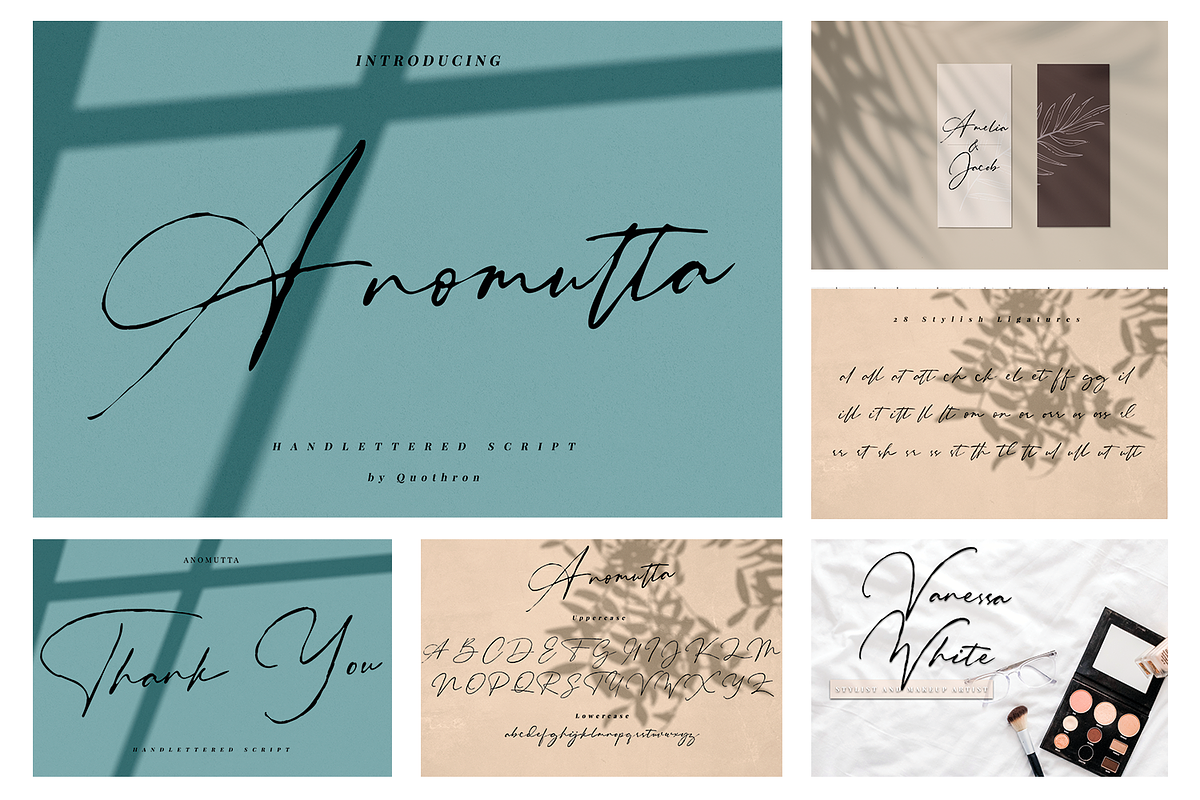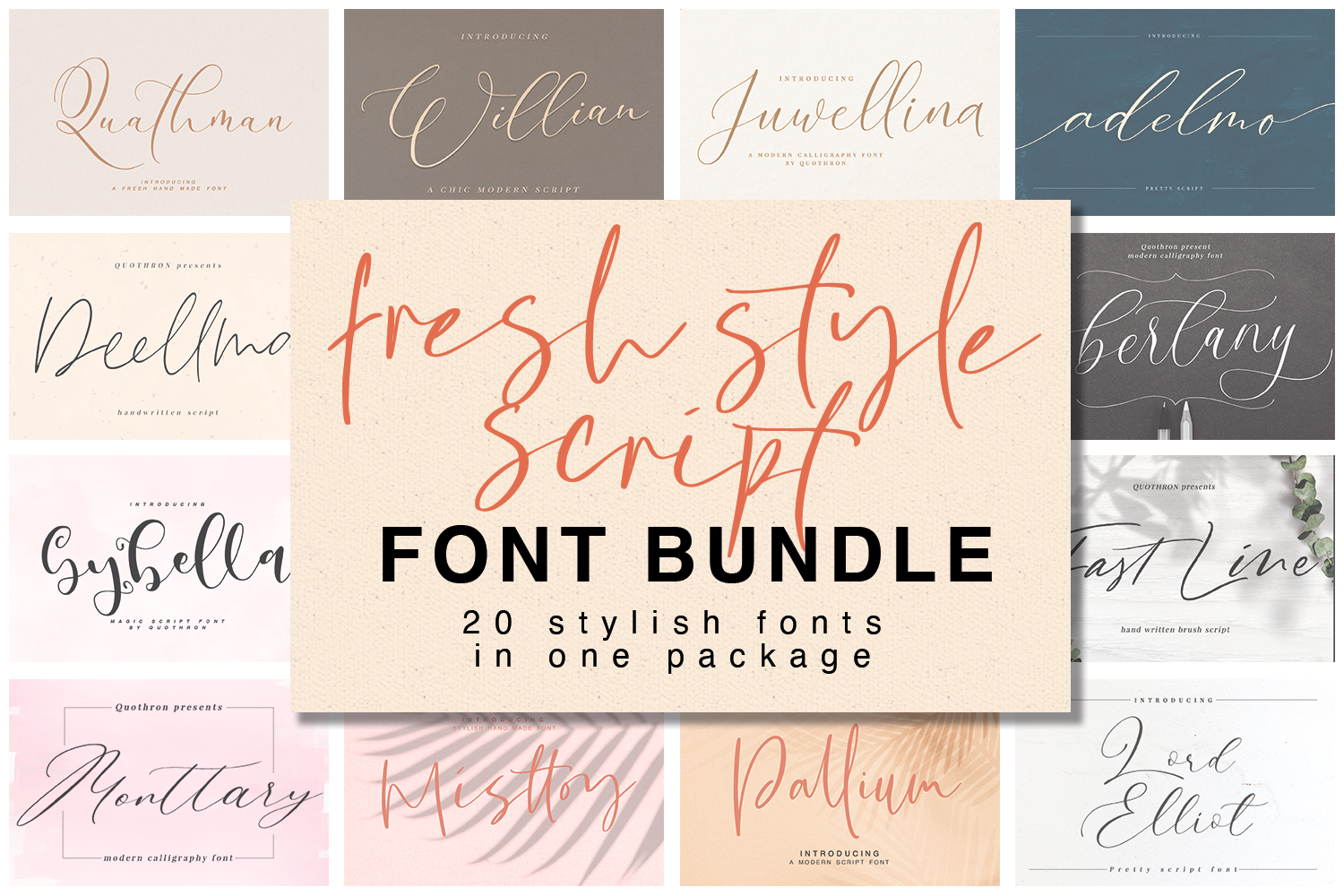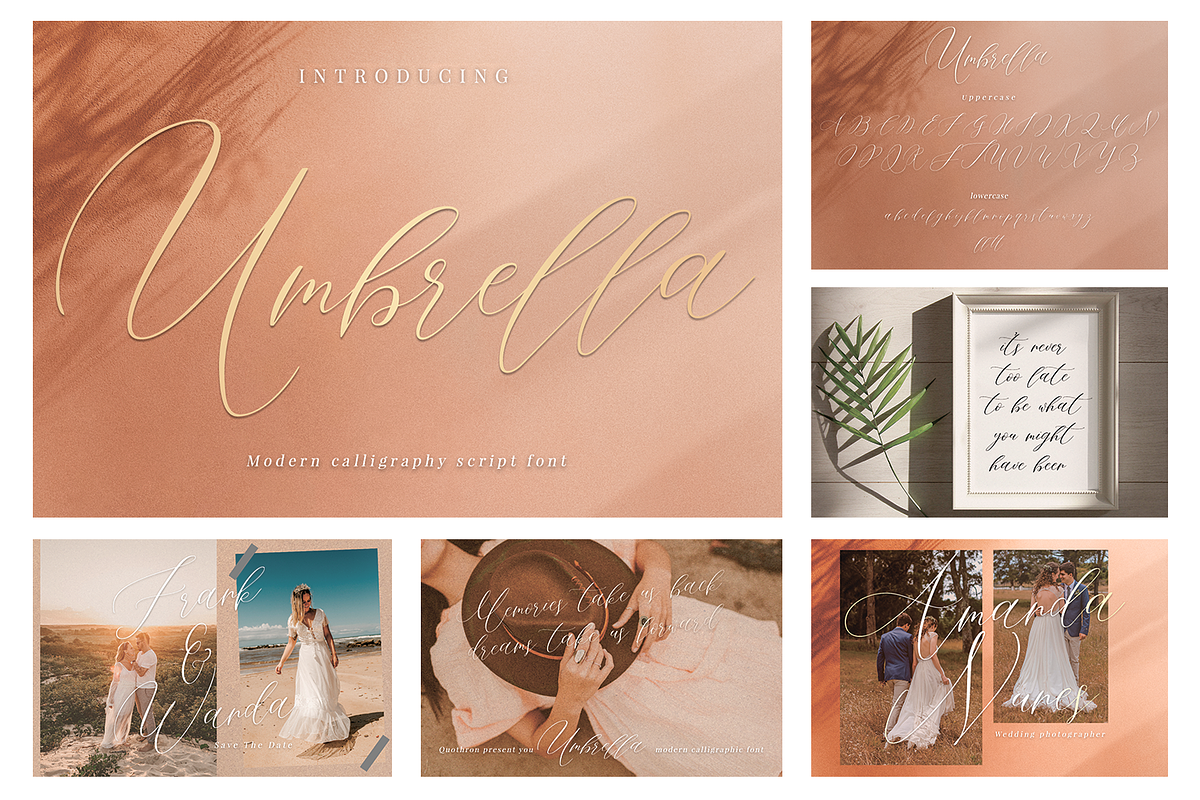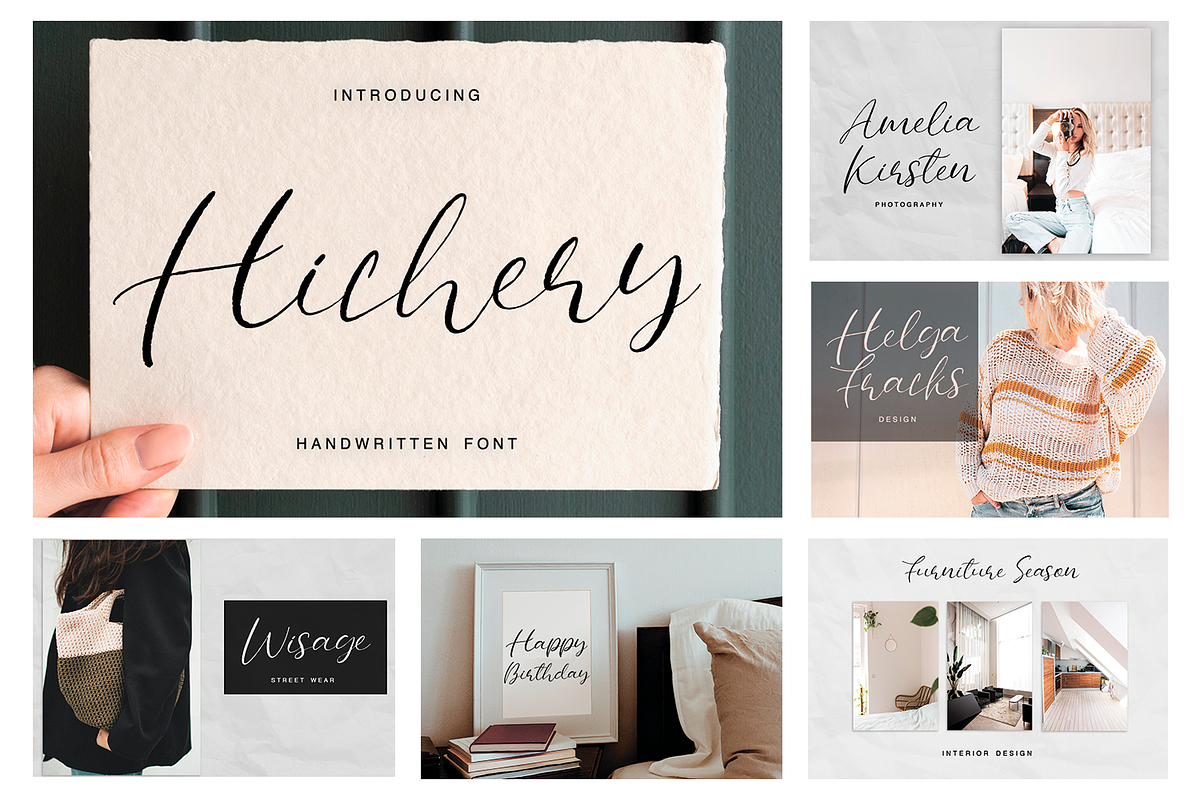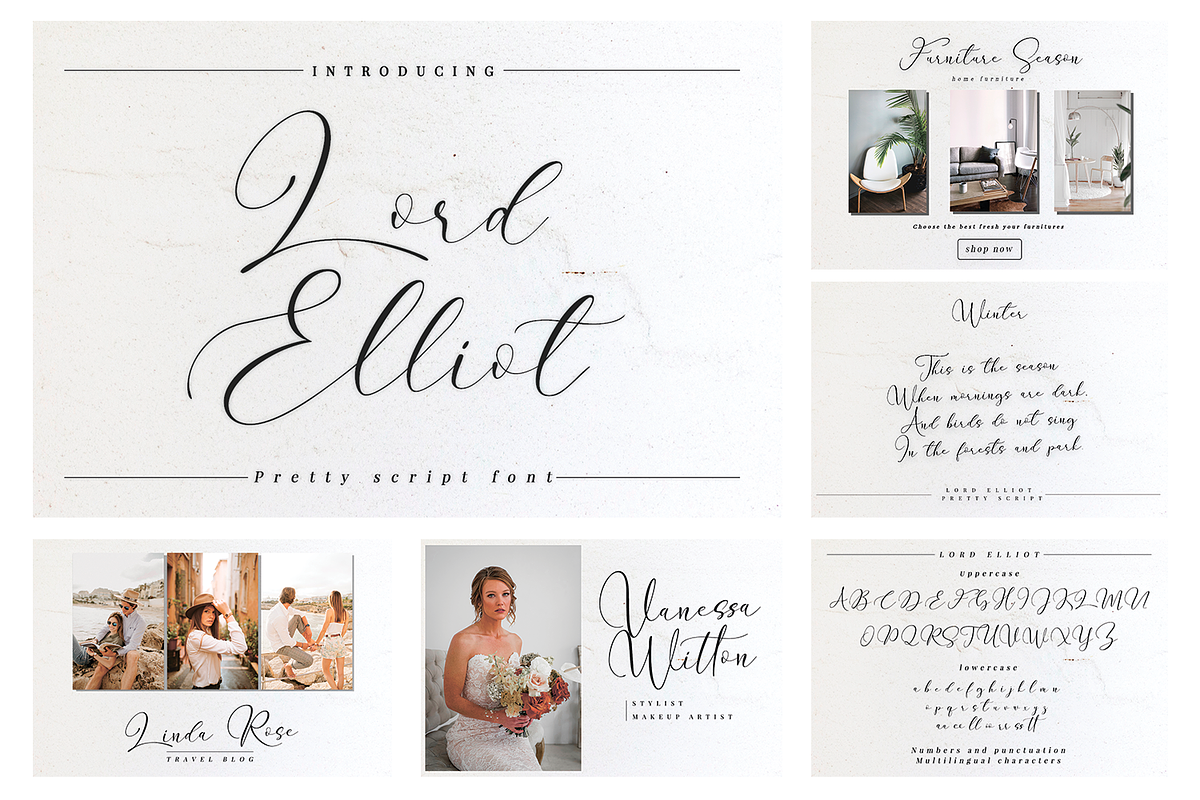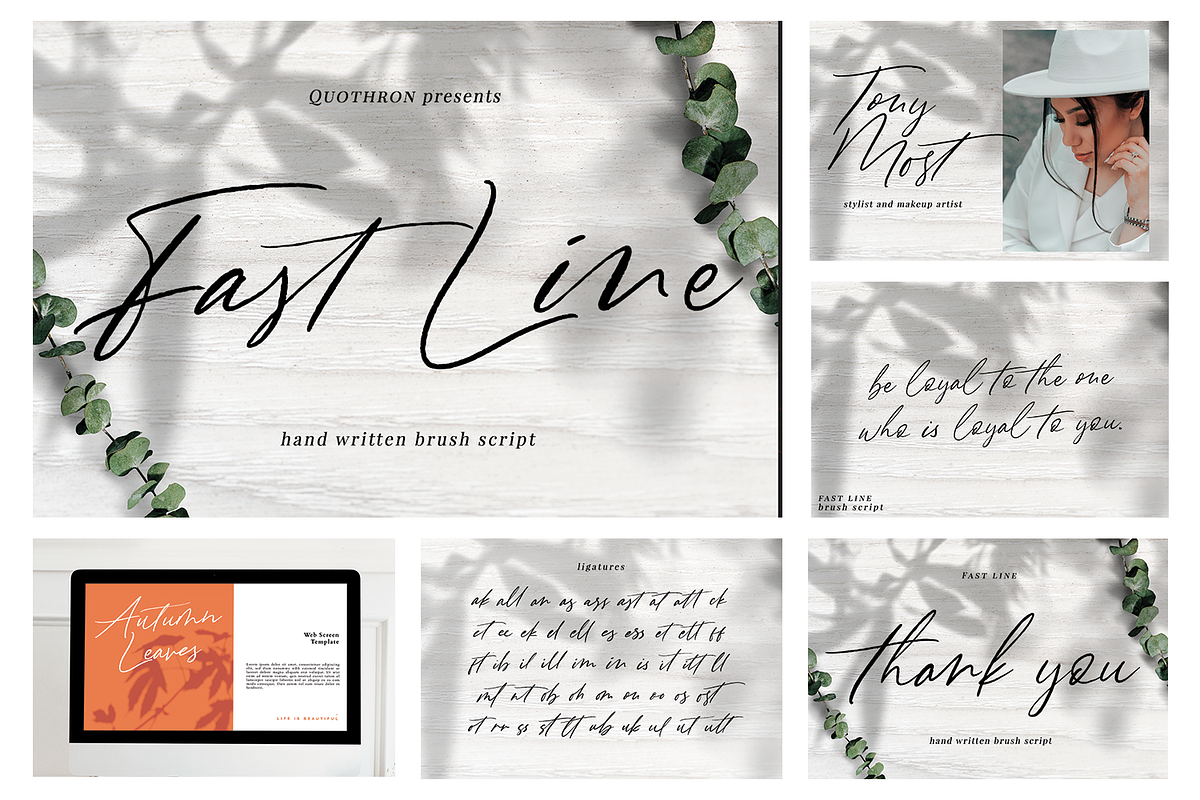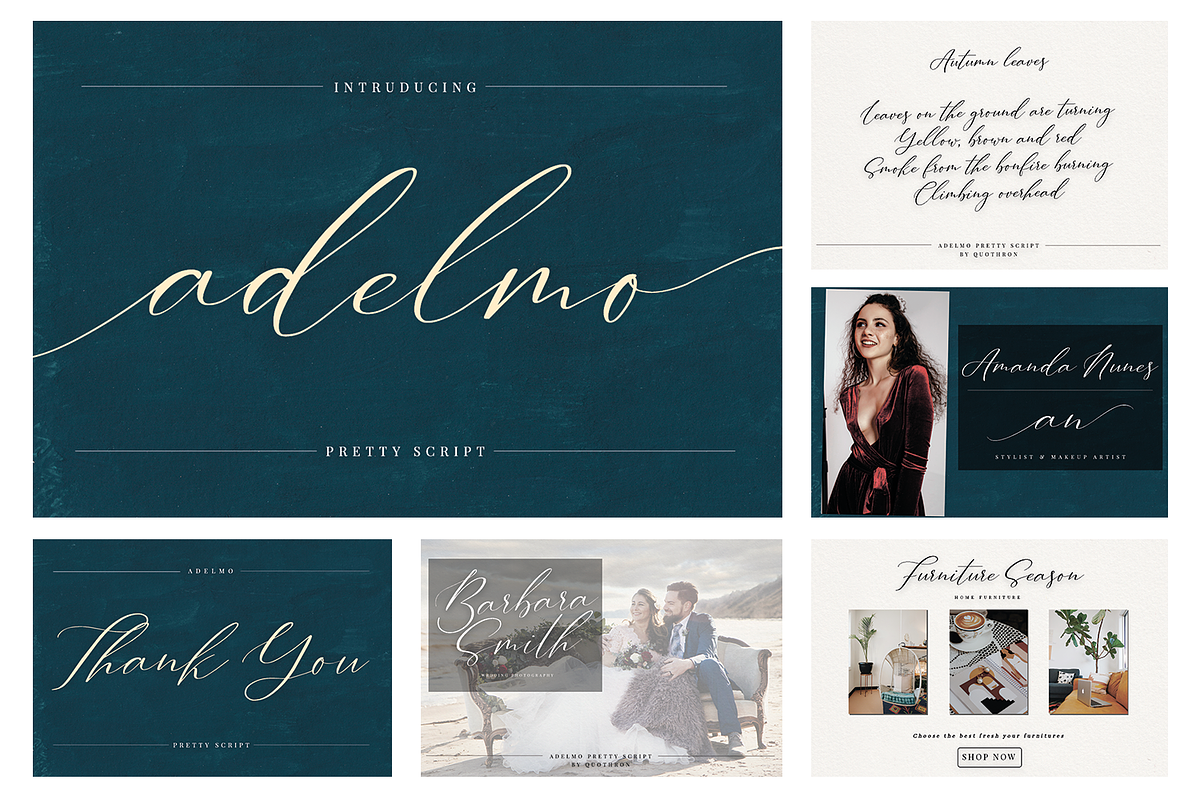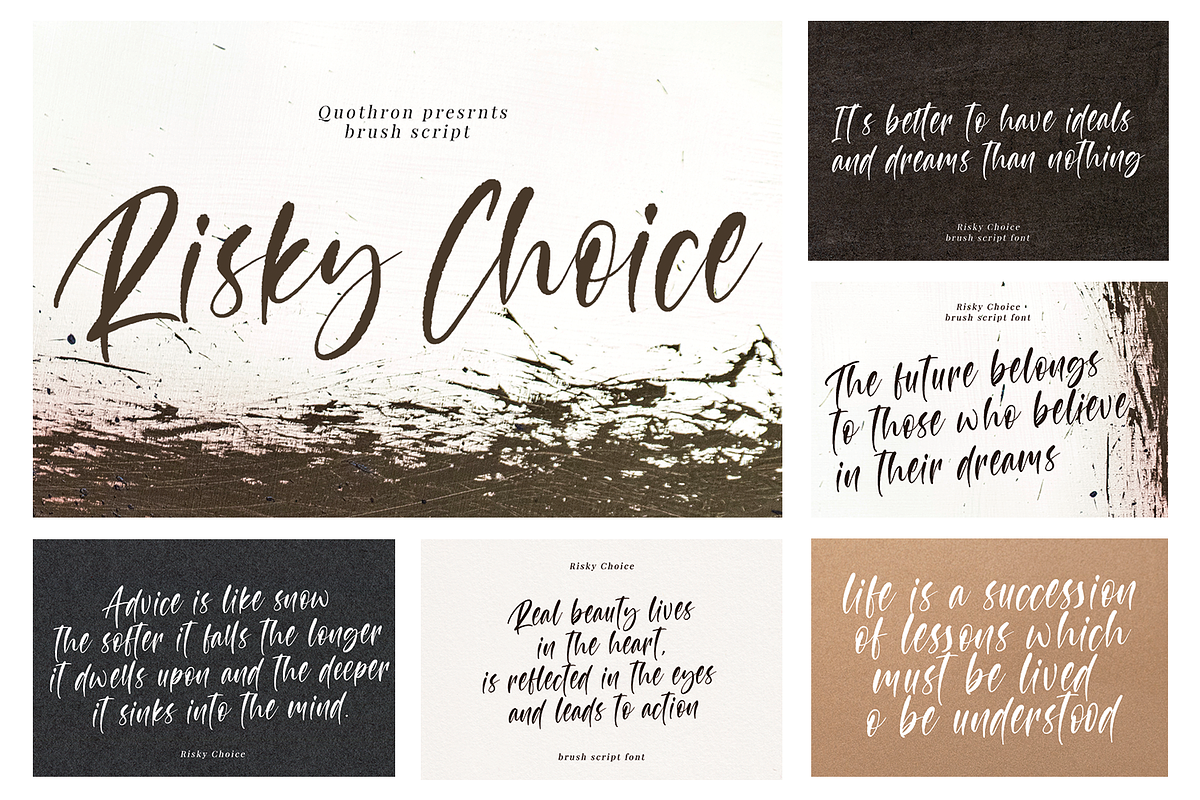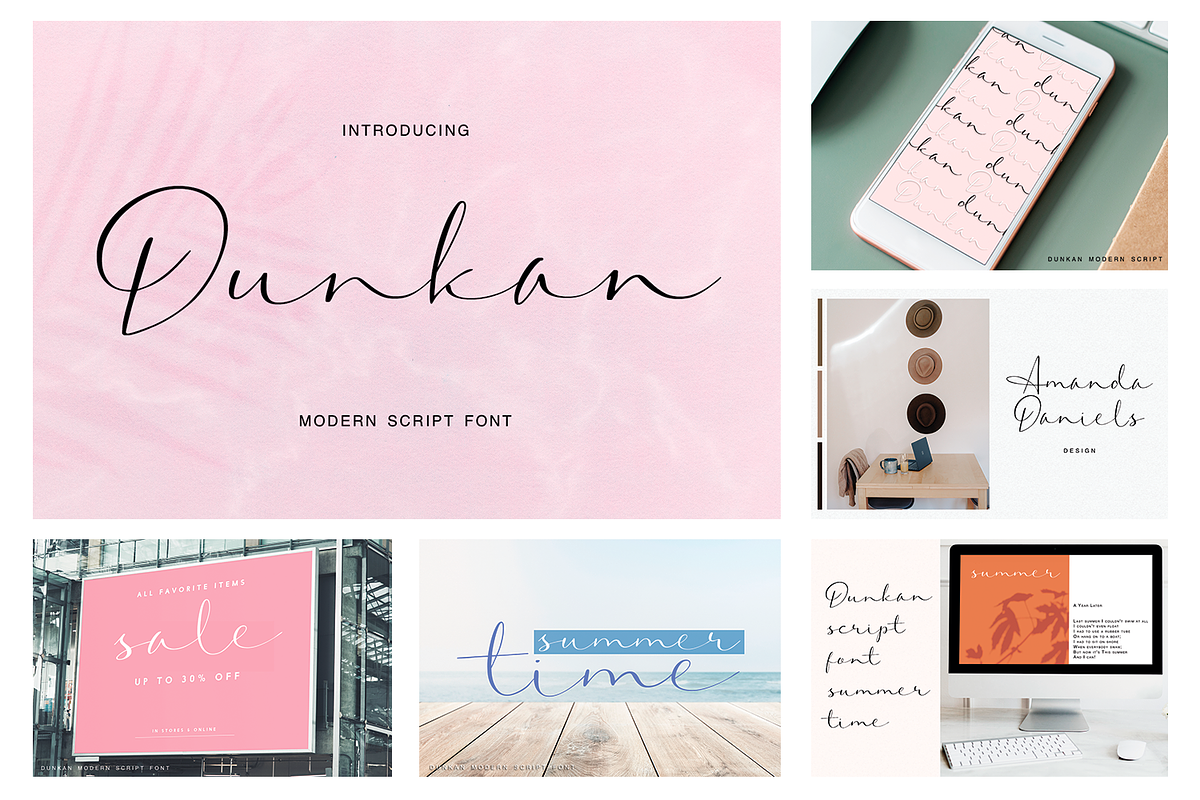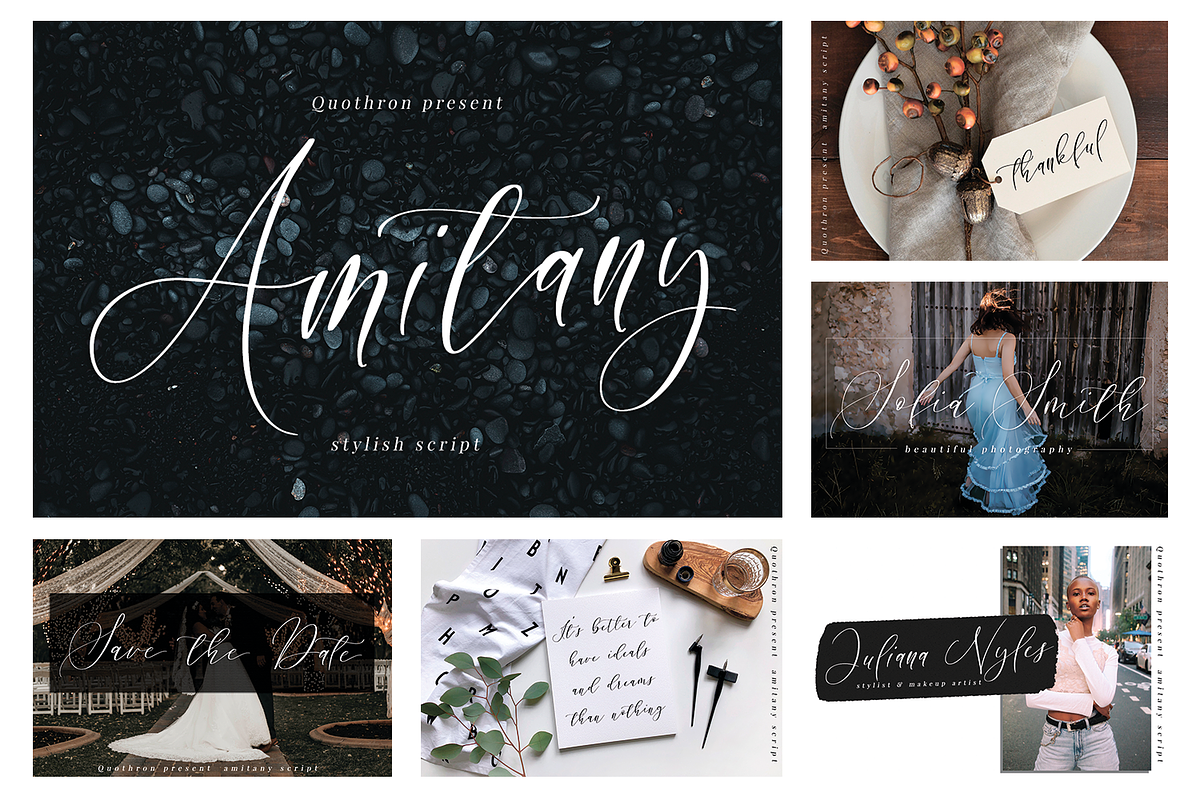
Fresh Style Script Font Bundle
All fonts are perfect for branding, headlines, captions, logos, blogs, wedding invitations, t-shirts, letterheads, Souvenirs, signage, labels, news, posters, badges, etc.